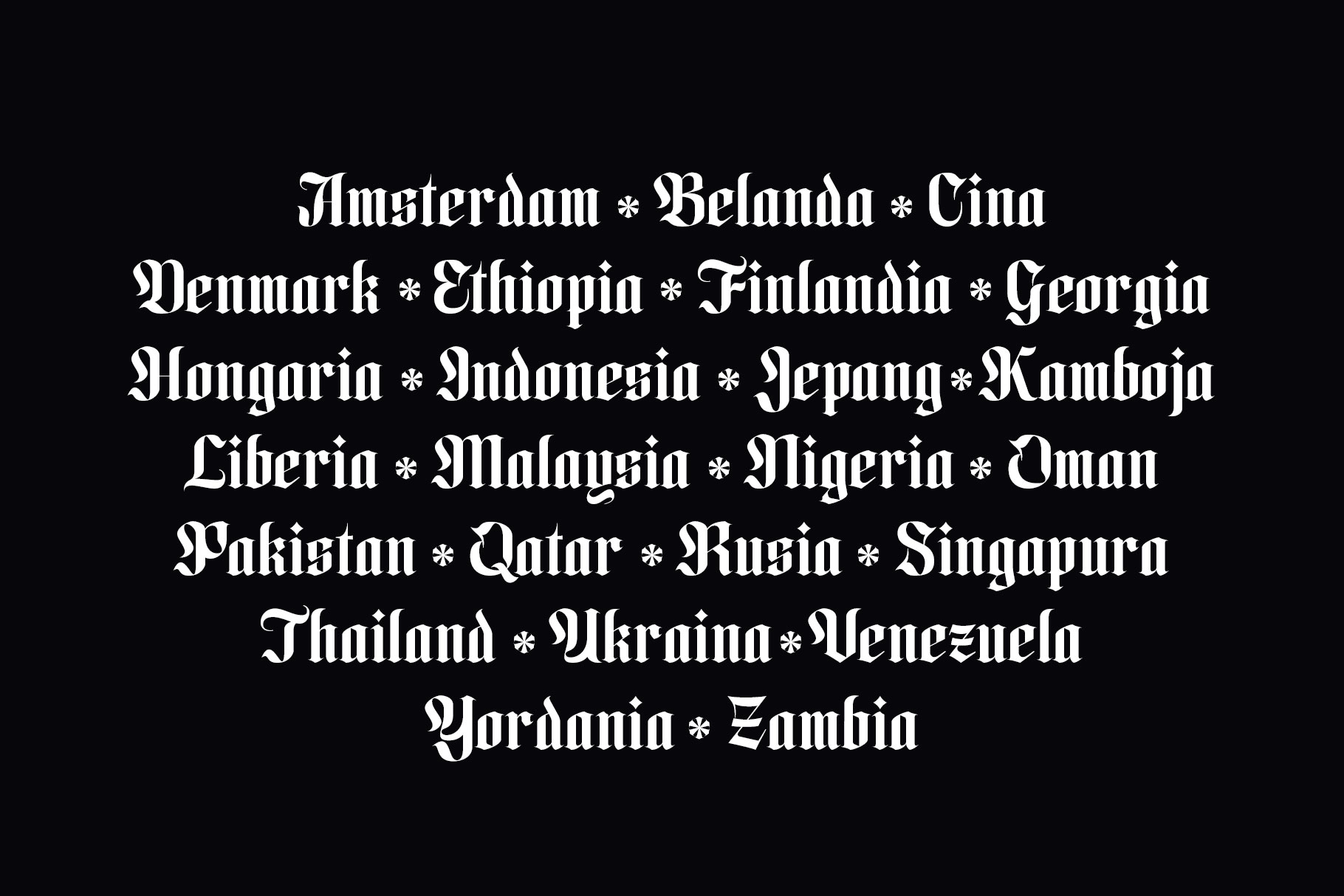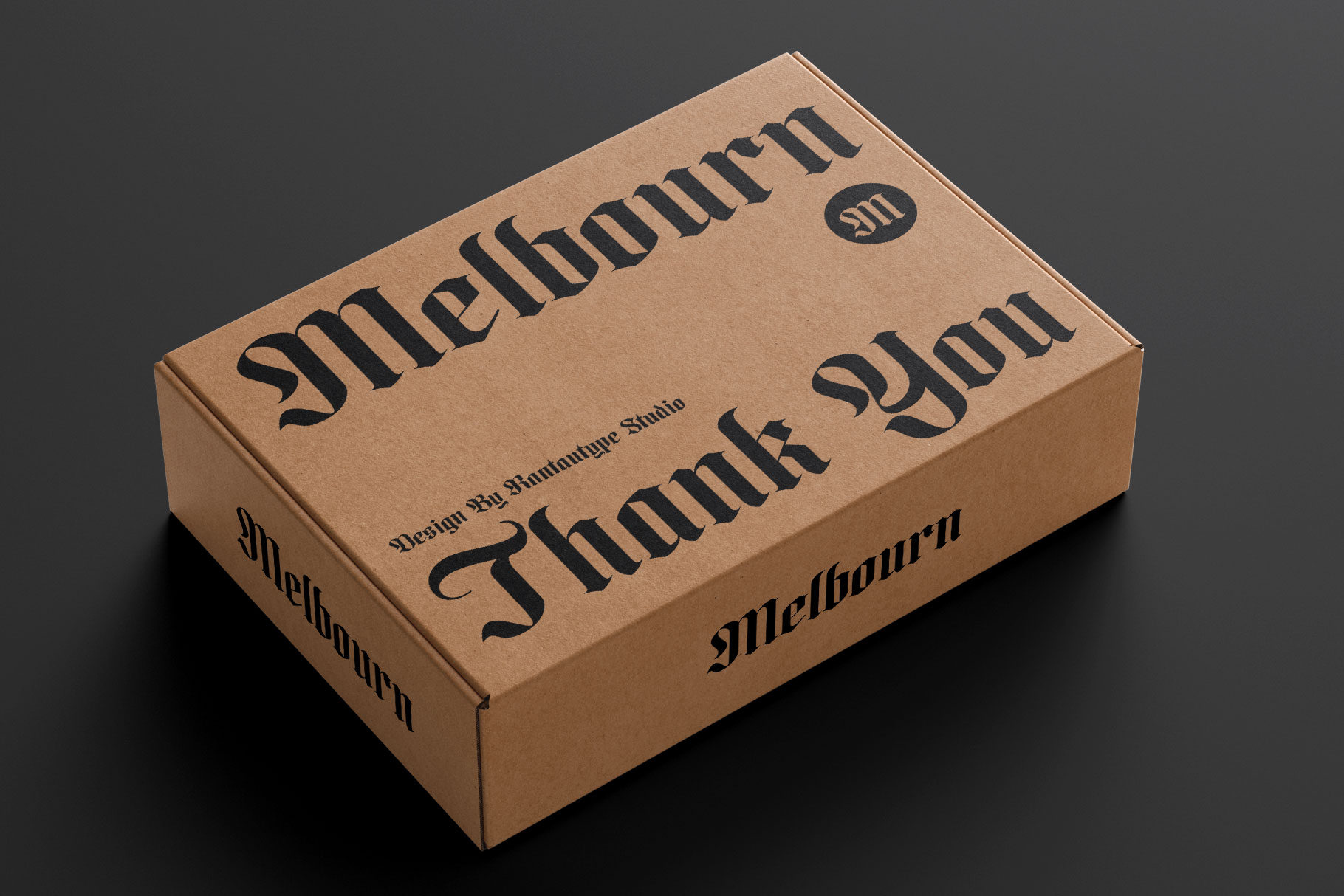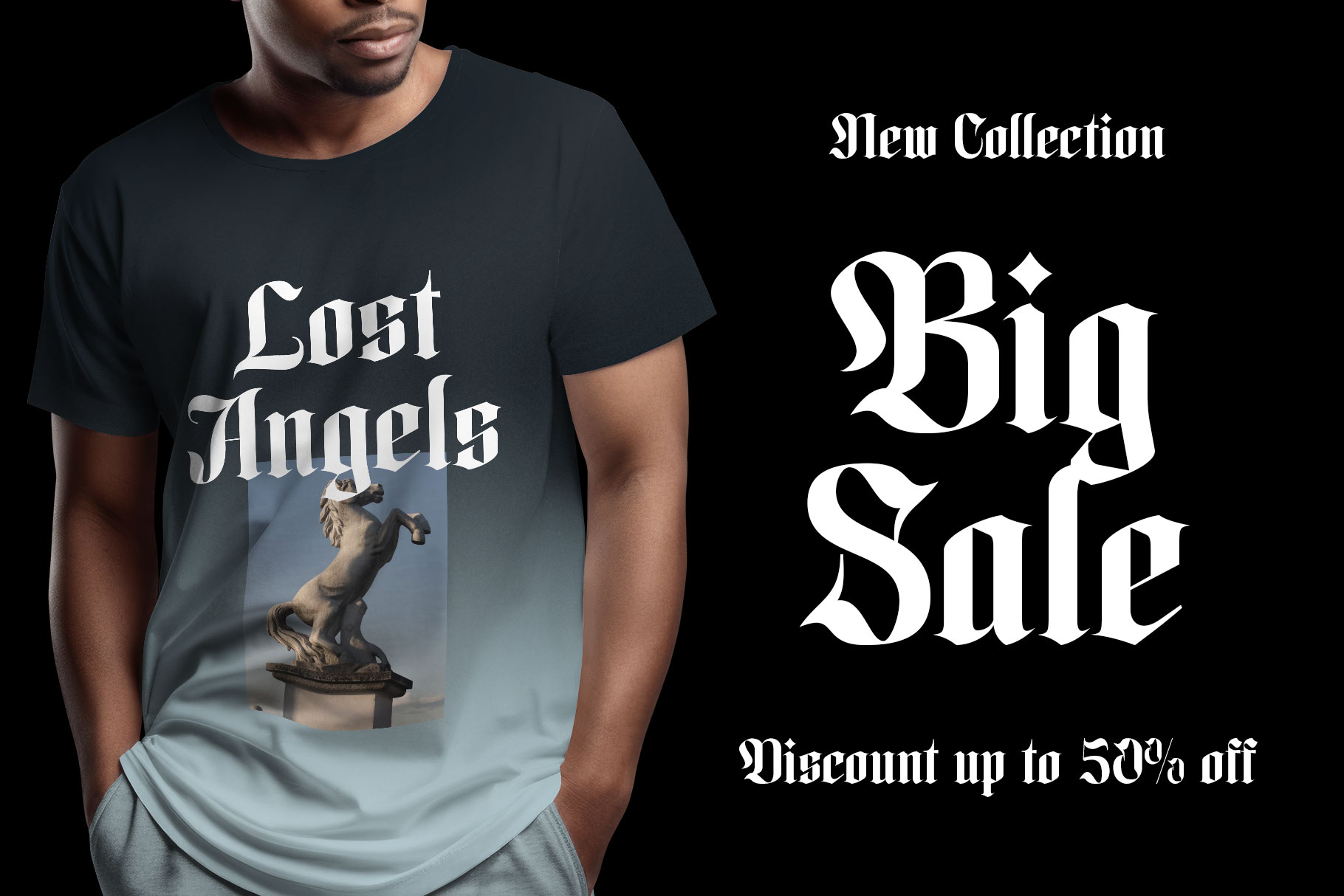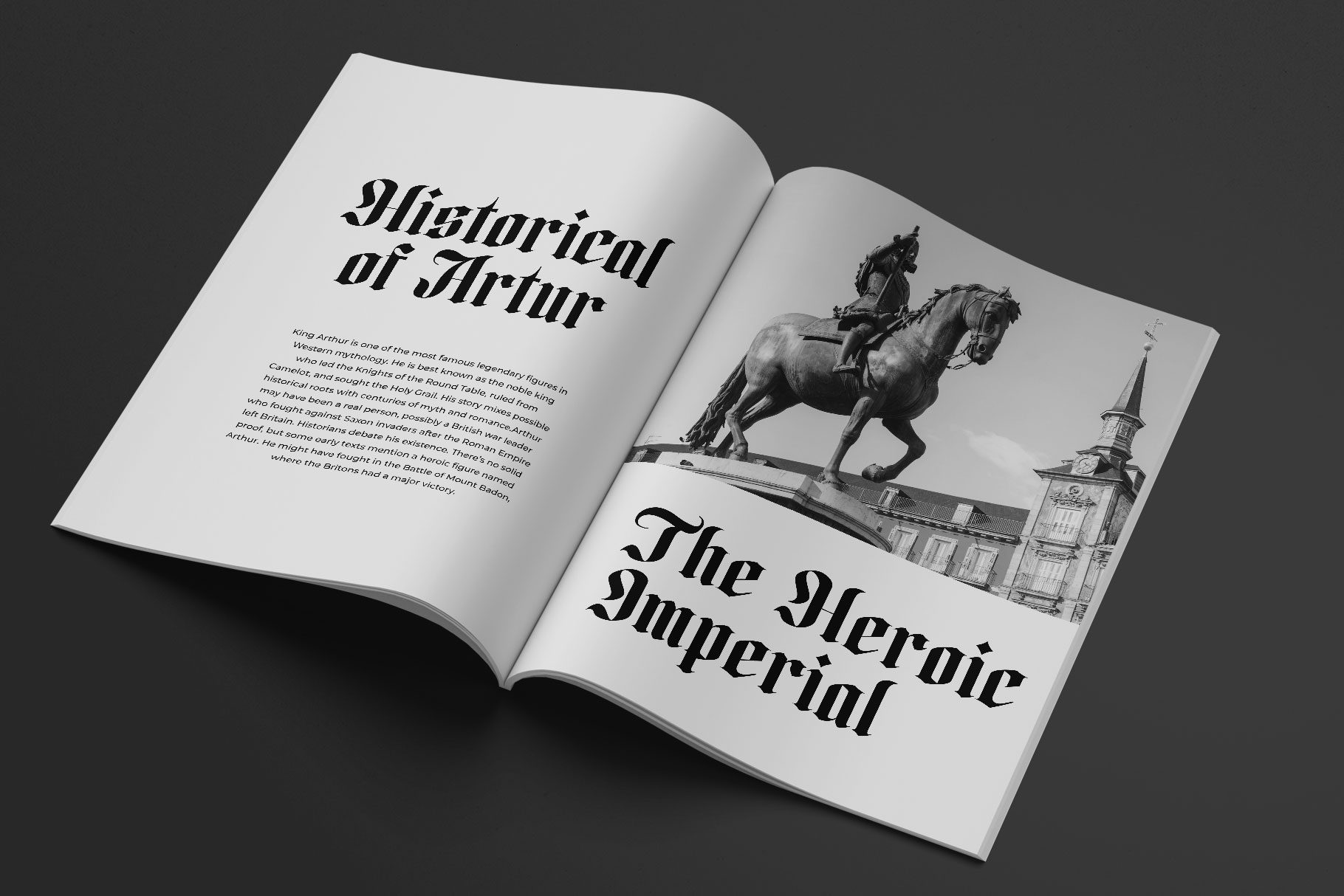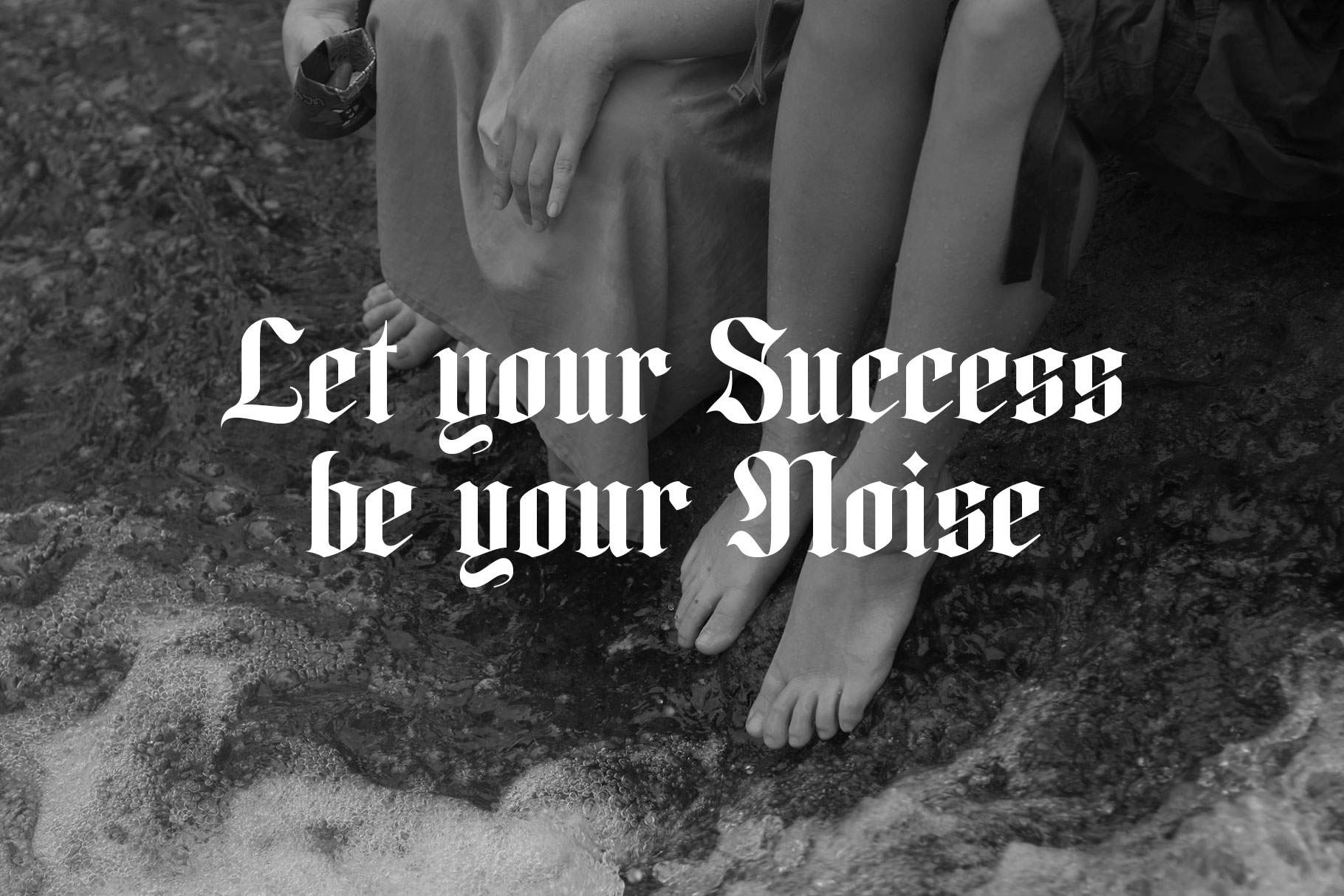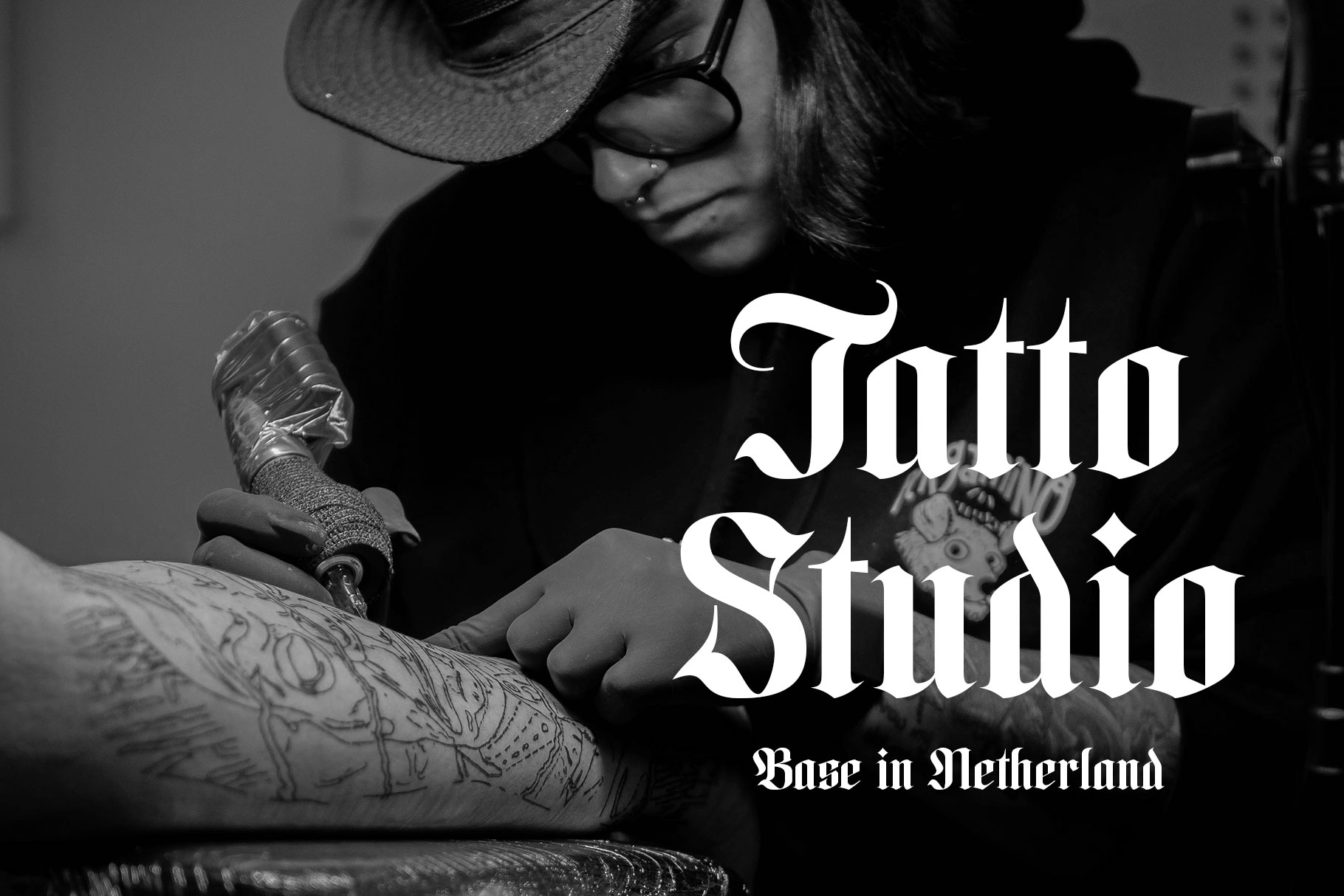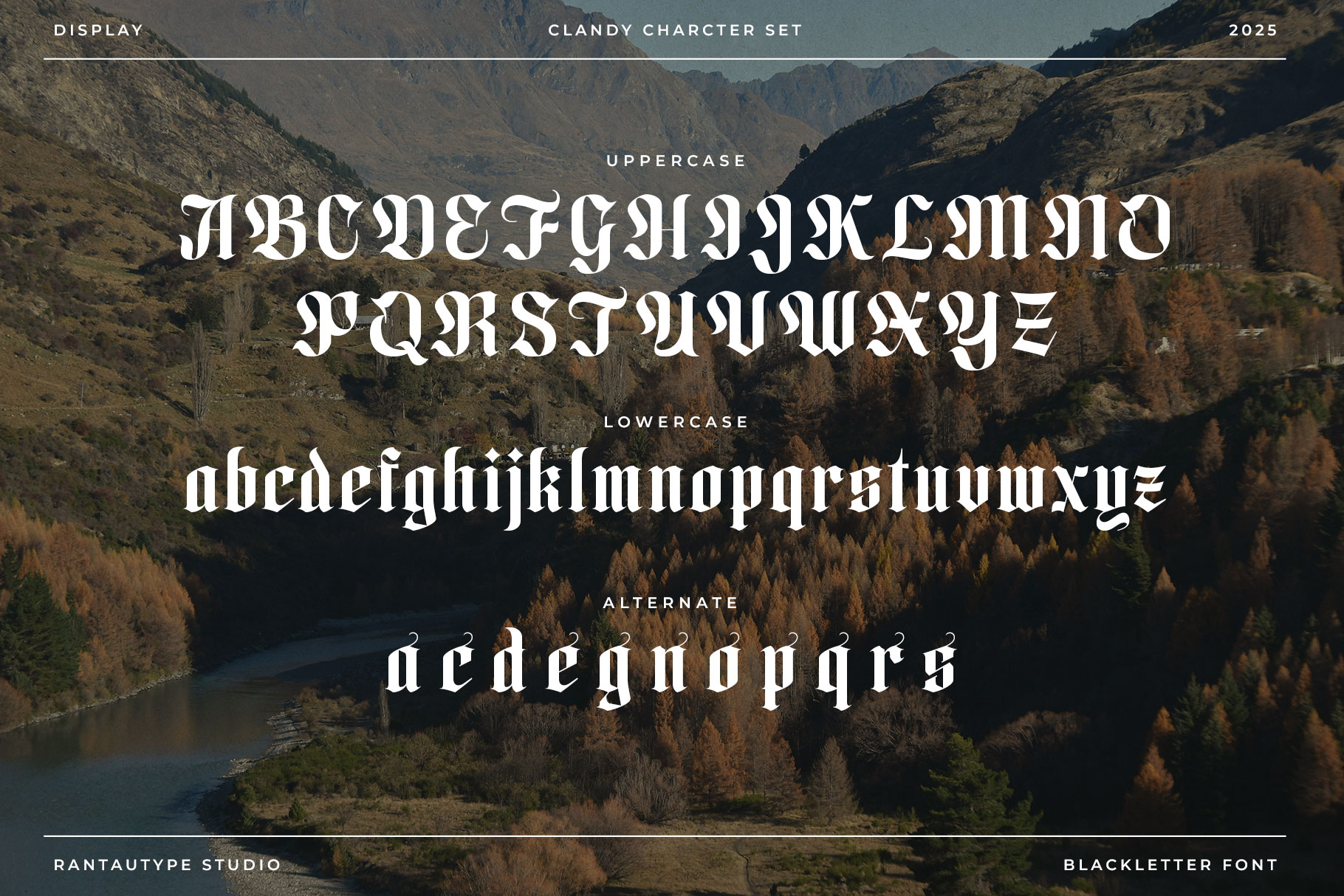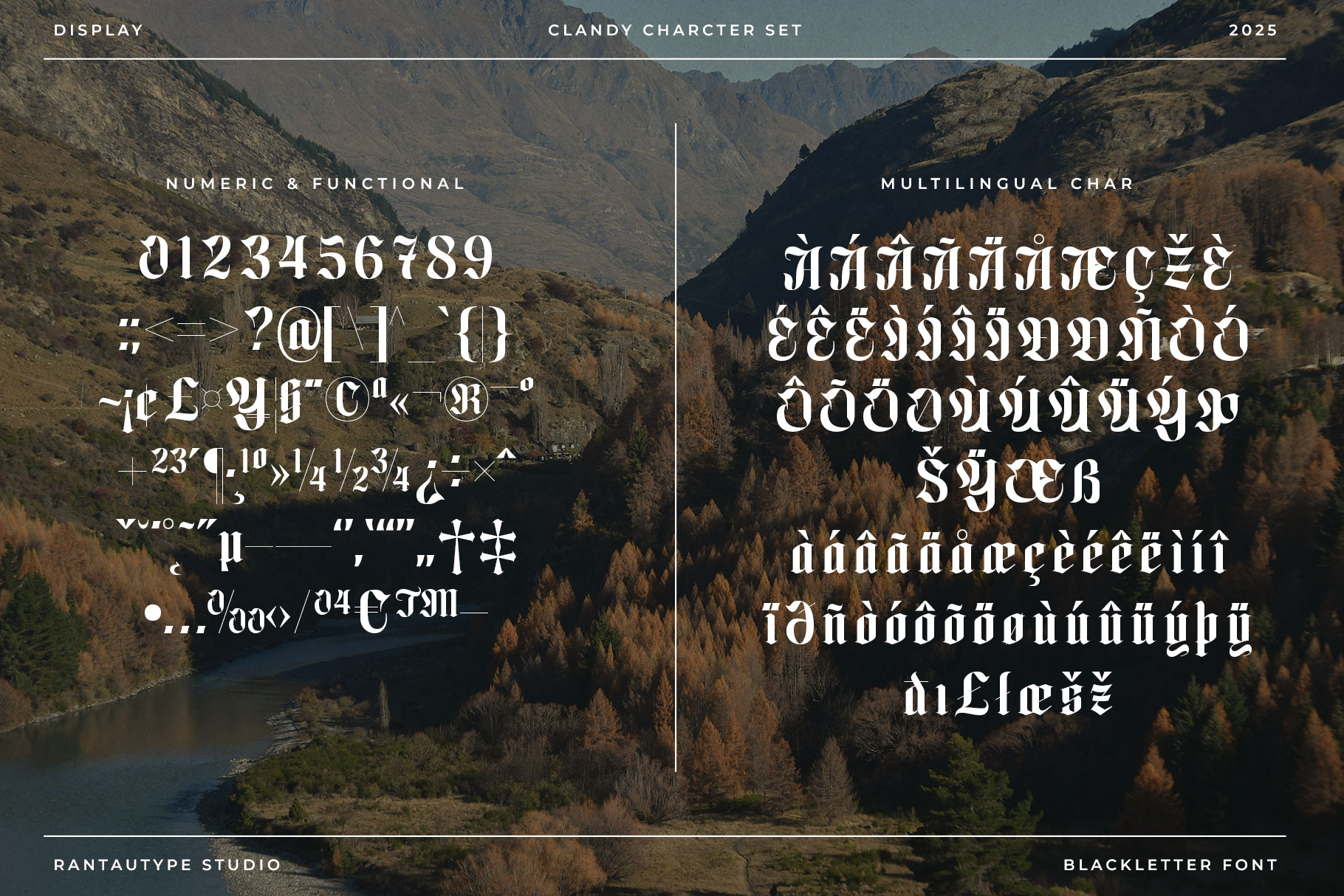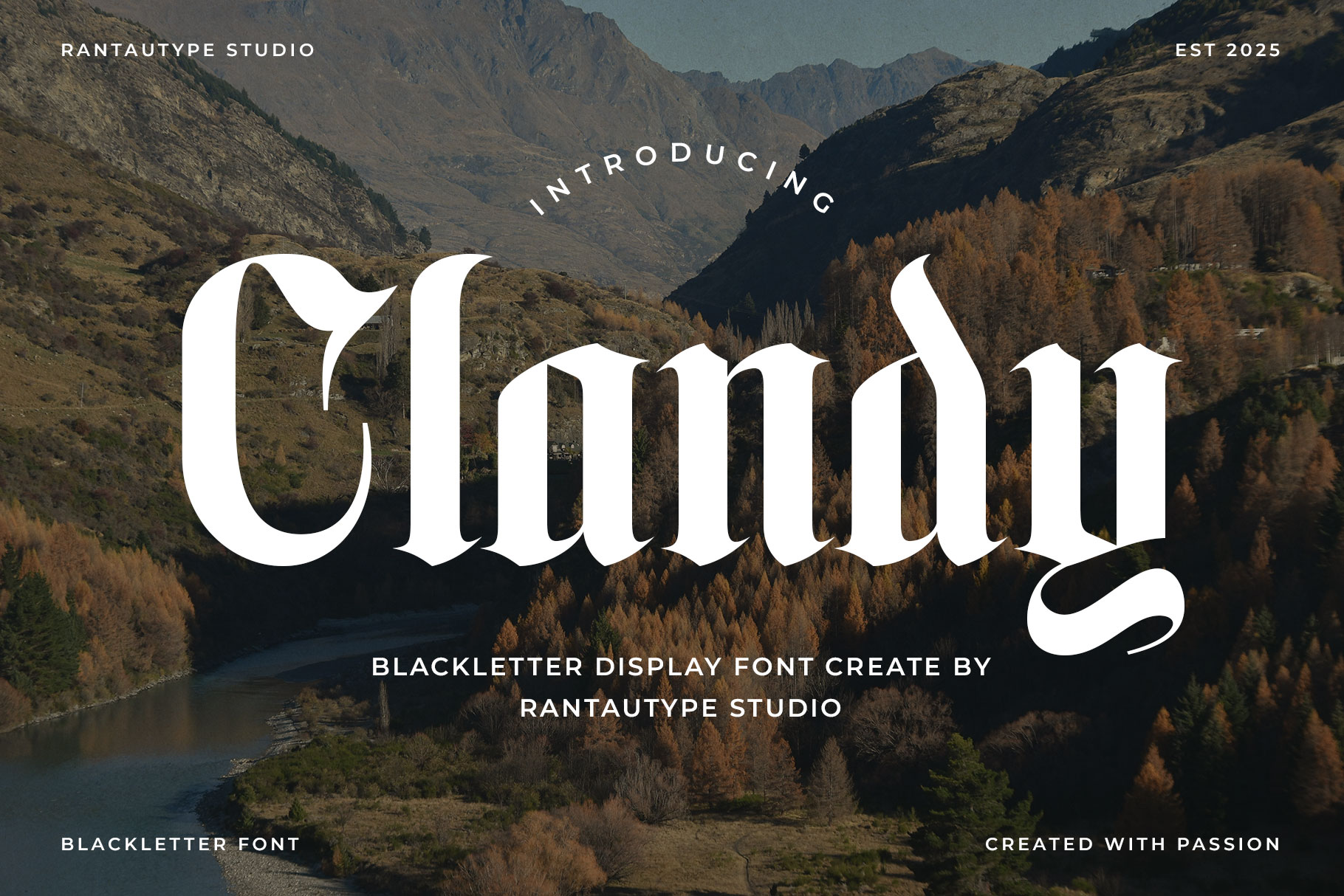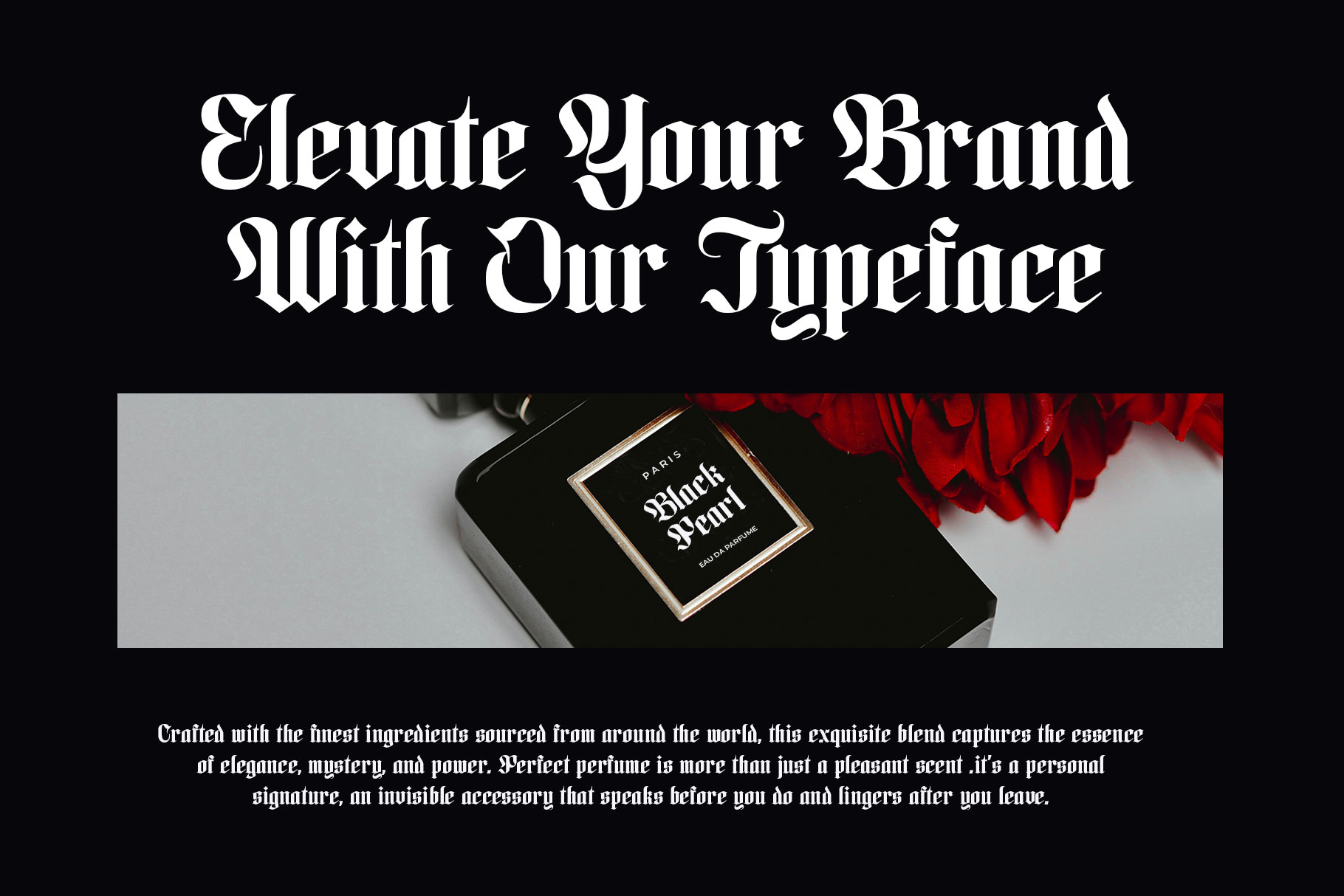
Clandy Blackletter Display Font
Clandy is blackletter display font with elegant character style. Clandy come with gothic romance and highly historical culture curves. Clandy is a perfectly choice for any creative endeavor, lifestyle design such as logotype, advertisements, watermark on photography, stationery, branding project, display and magazine, invitation, corporate brand, product design, label, business project and many other project with gothic touch.